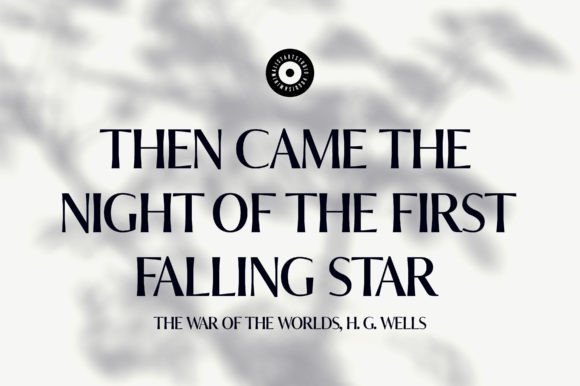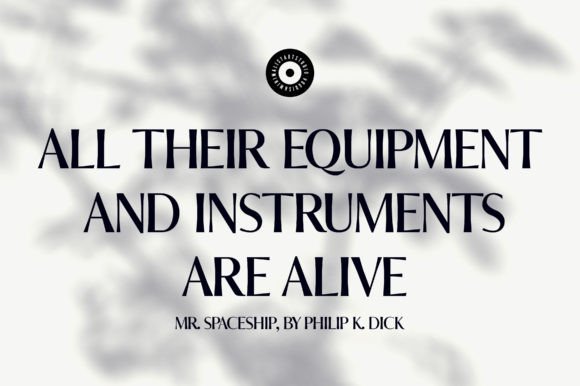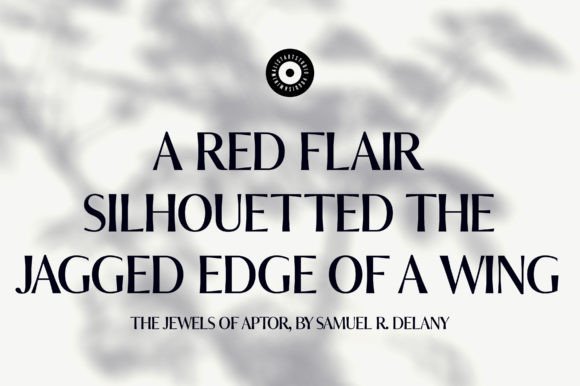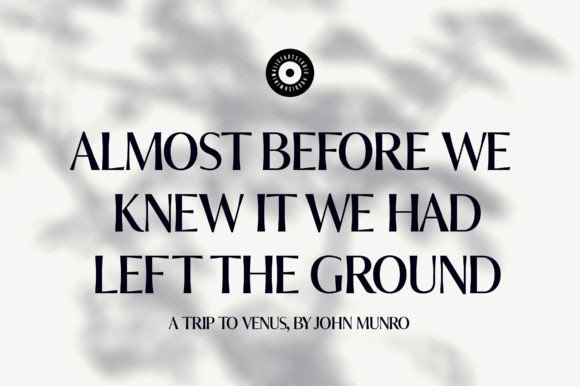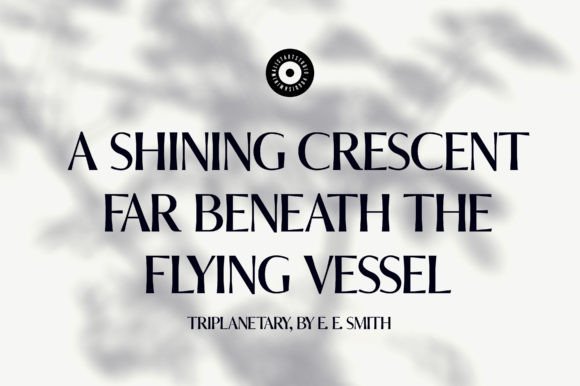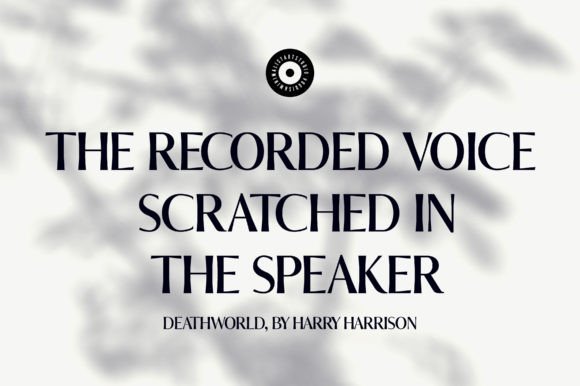
Introducing Ethika Font: The Epitome of Minimalist Elegance
In the world of typography, few fonts have managed to strike the perfect balance between form and function. However, Ethika Font is one such serif typeface that has successfully achieved this feat. With its clean lines, bold serifs, and exquisite proportions, Ethika is a timeless classic that seamlessly blends tradition with modernity. In this article, we’ll explore the features, benefits, and applications of Ethika Font, making it a must-read for designers, creatives, and anyone seeking a font that exudes a sense of understated refinement.
The Design Philosophy Behind Ethika
Ethika Font is crafted with a keen eye for balance, form, and function. Its design philosophy revolves around creating a strikingly beautiful font that stands out from the crowd. The font’s creator aimed to develop a typeface that embodies minimalist elegance and chic sophistication. As a result, Ethika boasts a unique blend of classic and modern elements, making it a versatile choice for various design projects.
Key Features of Ethika Font
So, what makes Ethika Font so special? Here are some of its key features:
- Clean Lines: Ethika’s lines are remarkably clean and sharp, making it perfect for use in a wide range of applications.
- Bold Serifs: The font’s serifs are bold and elegant, adding a touch of sophistication to any design project.
- Exquisite Proportions: Ethika’s proportions are carefully crafted to ensure optimal legibility and aesthetics.
- Remarkable Legibility: The font’s clear, sharp lines make it easy to read, even in small sizes.
Applications of Ethika Font
Ethika Font is an incredibly versatile typeface that can be used in various design projects. Its sleek, modern style makes it ideal for:
- Fashion and Beauty: Ethika is perfect for fashion and beauty brands looking for a font that exudes elegance and sophistication.
- Luxury and Lifestyle: The font’s luxurious feel makes it suitable for luxury and lifestyle brands seeking to convey a sense of high-end quality.
- Logo Design: Ethika’s unique blend of classic and modern elements makes it an excellent choice for logo design.
- Web Design: The font’s legibility and clean lines make it perfect for web design, ensuring a seamless user experience.
- Print Design: Ethika is also suitable for print design, including brochures, magazines, and business cards.
Benefits of Using Ethika Font
So, why should you choose Ethika Font for your design projects? Here are some benefits:
- Timeless Elegance: Ethika’s classic design ensures that your work will remain stylish and relevant for years to come.
- Versatility: The font’s versatility makes it suitable for a wide range of applications and design projects.
- Legibility: Ethika’s remarkable legibility ensures that your message is conveyed clearly and effectively.
- Unique Identity: The font’s unique blend of classic and modern elements helps create a distinctive identity for your brand.
In conclusion, Ethika Font is a masterpiece of typography that embodies minimalist elegance and chic sophistication. Its clean lines, bold serifs, and exquisite proportions make it a timeless classic that seamlessly blends tradition with modernity. With its remarkable legibility, versatility, and unique identity, Ethika is the perfect choice for designers, creatives, and anyone seeking a font that exudes a sense of understated refinement. Whether you’re designing a logo, creating a website, or laying out a print project, Ethika Font is sure to elevate your work to new heights.